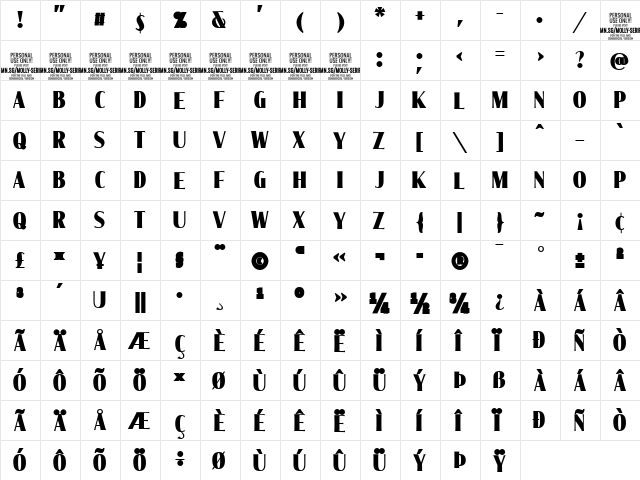
Molly Serif XC PERSONAL Black
| Foundry | Mans Greback |
| Designer | Mans Greback |
Design Context for Molly Serif XC PERSONAL Typeface
Molly Serif XC PERSONAL carries the refined structure of traditional serif typography, with bracketed terminals and considered proportions that communicate credibility and craft.